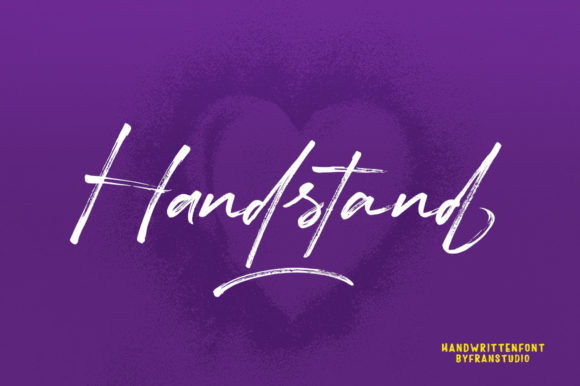
Meet Handstand Font, the vibrant dance of letters, a playful script that captures the beauty of handwritten strokes. A creation of Franstudio, this font carries the carefree spirit of a brush pen, flowing with casual elegance and a touch of quirk.
Born from the desire to add a personal touch to your creative endeavors, Handstand Font flourishes with personality. Its dancing baselines and expressive strokes bring a lively charm to logos, branding, social media, and those beloved DIY projects.
Step into a world where imagination reigns free, where Handstand Font becomes your trusty companion. Let your fingers glide across the keyboard, and watch as words transform into art. Each letter, a little piece of your story, unfolds on the screen, carrying your message with a dash of individuality.
Handstand Font is more than just a collection of letters; it's a creative playground where your ideas take center stage. Unleash your inner artist and let the world witness the magic that flows from your fingertips. Whether it's a captivating logo that reflects your brand's unique spirit, a social media post that dances with personality, or a handmade card that speaks volumes, Handstand Font is your ticket to creative freedom.
Embrace the joyous spirit of Handstand Font, a script that embodies the essence of carefree creativity. Let your designs burst with life, your words dance with grace, and your projects shimmer with originality. Make a statement, leave a lasting impression, and let Handstand Font be your guide on this enchanting journey.